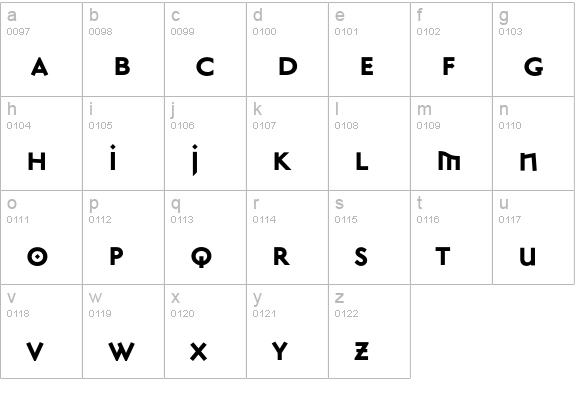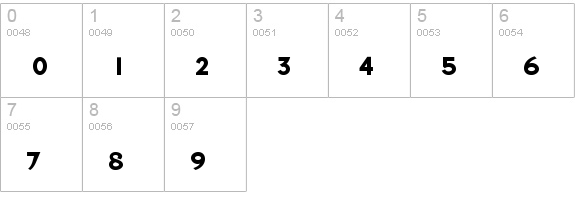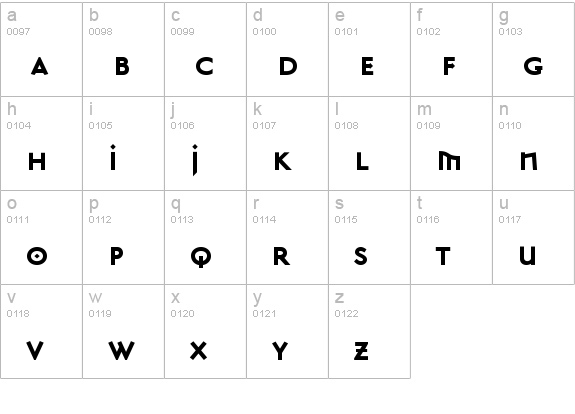
MasonSansAlternateBold Font Details
Introducing MasonSansAlternateBold, a stunning and versatile font that exudes confidence and modernity. With its bold and distinctive letterforms, this typeface is perfect for making a statement in your designs. Whether you're working on a logo, branding, or any other creative project, MasonSansAlternateBold will effortlessly captivate your audience. One of the best aspects of this font is that it is freely available to download at FontsMarket.com. Yes, you read that right - it's absolutely free! Now, you can enhance your designs without any barriers, without compromising on quality. MasonSansAlternateBold is a true gem in the world of typography. Its clean and sleek lines create a harmonious balance between elegance and boldness, making it suitable for a wide range of applications. From headings and titles to posters and banners, this font will leave a lasting impression. With its wide range of characters, including alternate glyphs, MasonSansAlternateBold offers endless possibilities for customization. This font allows you to experiment with different styles and create a unique look tailored to your specific design needs. Designed with utmost precision and attention to detail, MasonSansAlternateBold ensures optimal legibility, even at smaller sizes. Its carefully crafted letterforms guarantee a smooth reading experience, making it perfect for body text, paragraphs, and other textual elements. Whether you're a seasoned designer or just starting your creative journey, MasonSansAlternateBold is here to elevate your projects to new heights. So, why wait? Head over to FontsMarket.com and indulge in the luxury of this remarkable font - freely available for you to download and bring your designs to life.